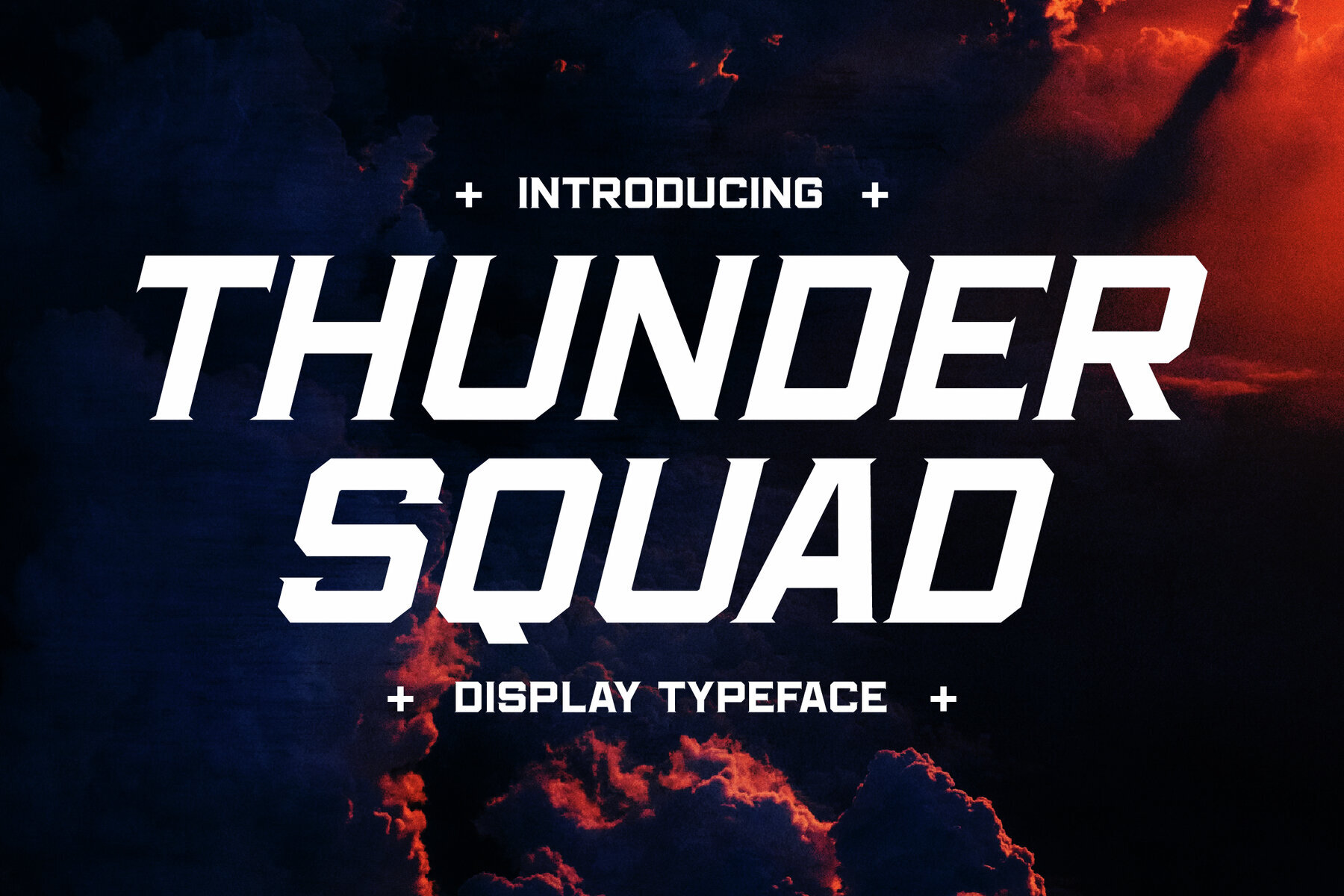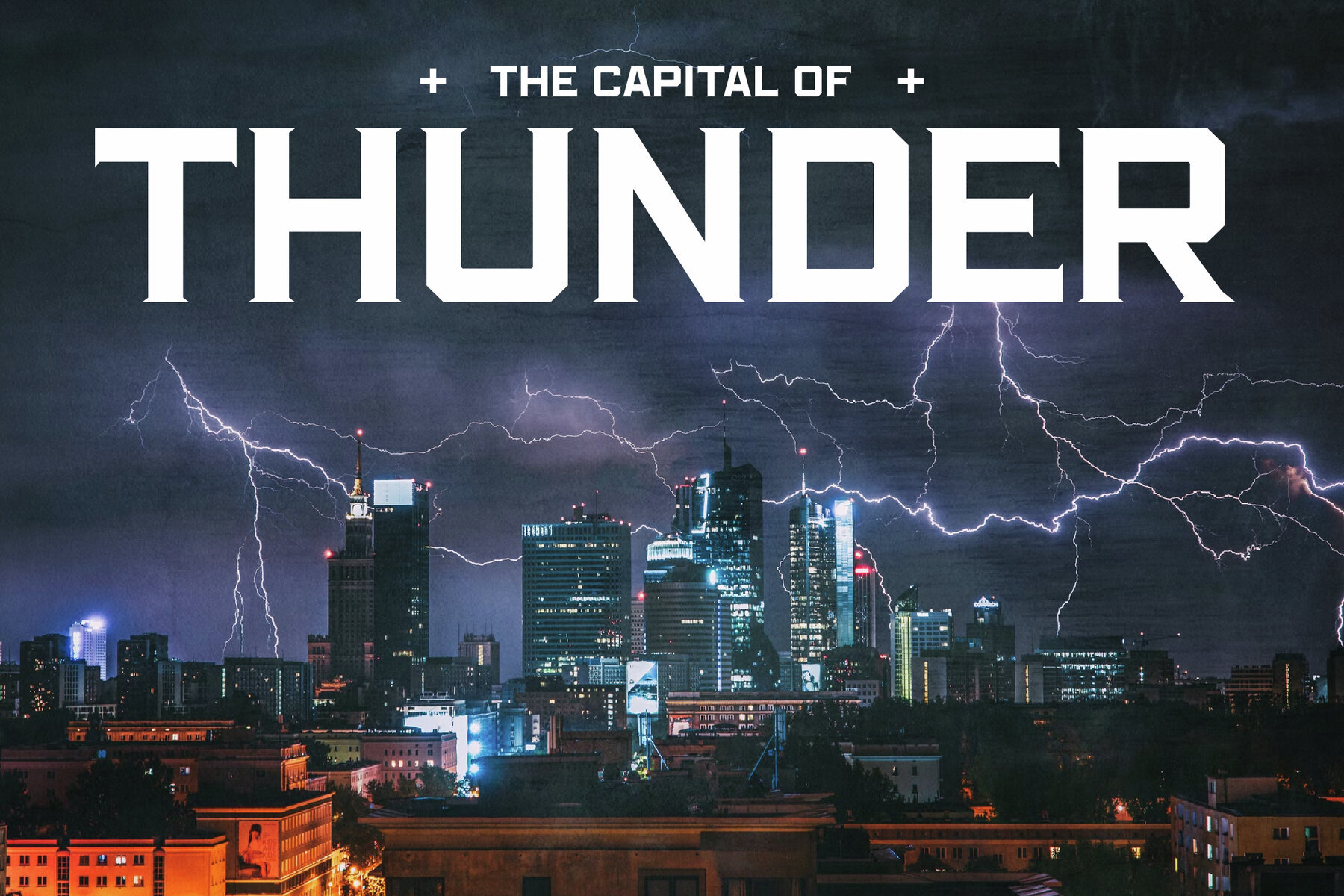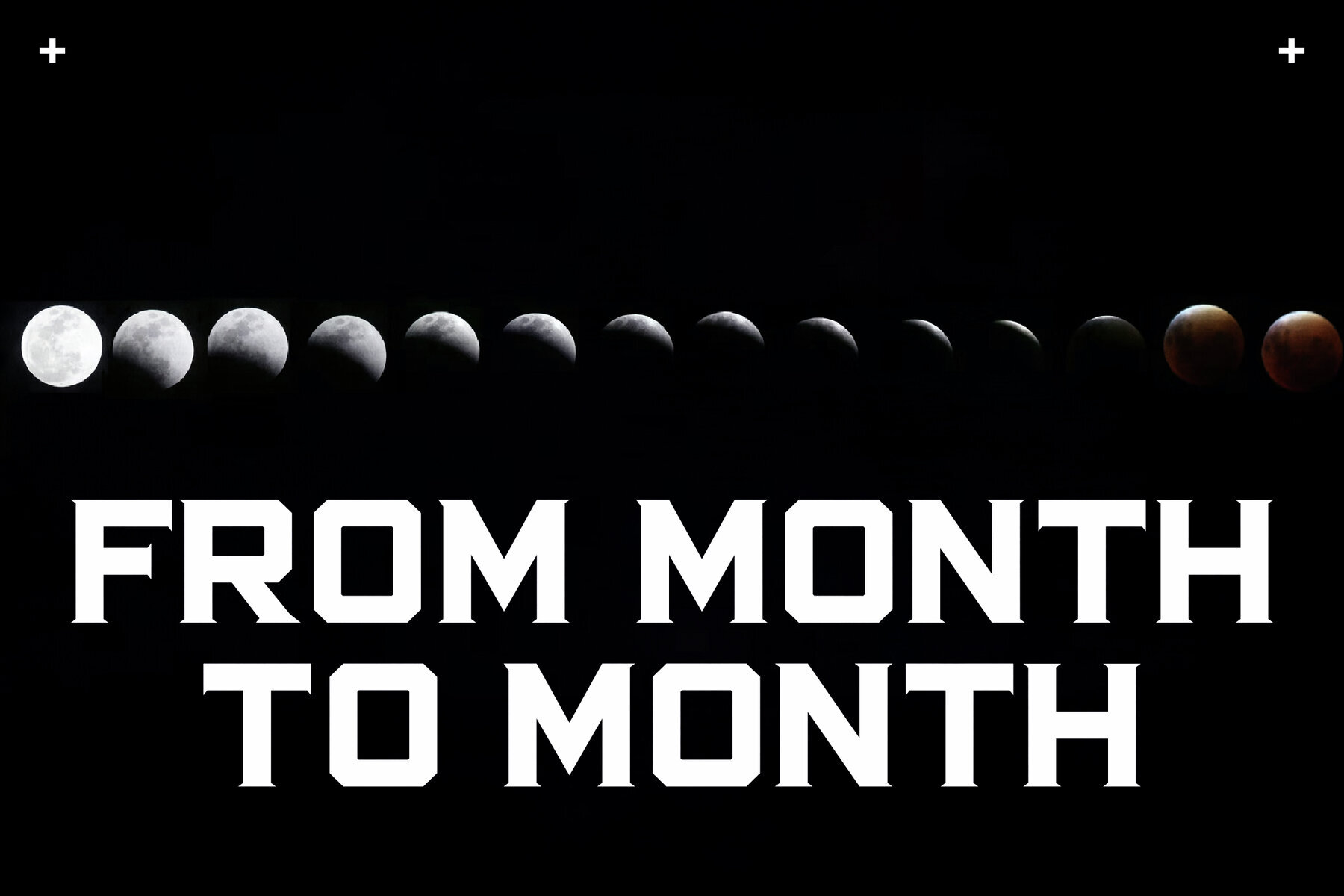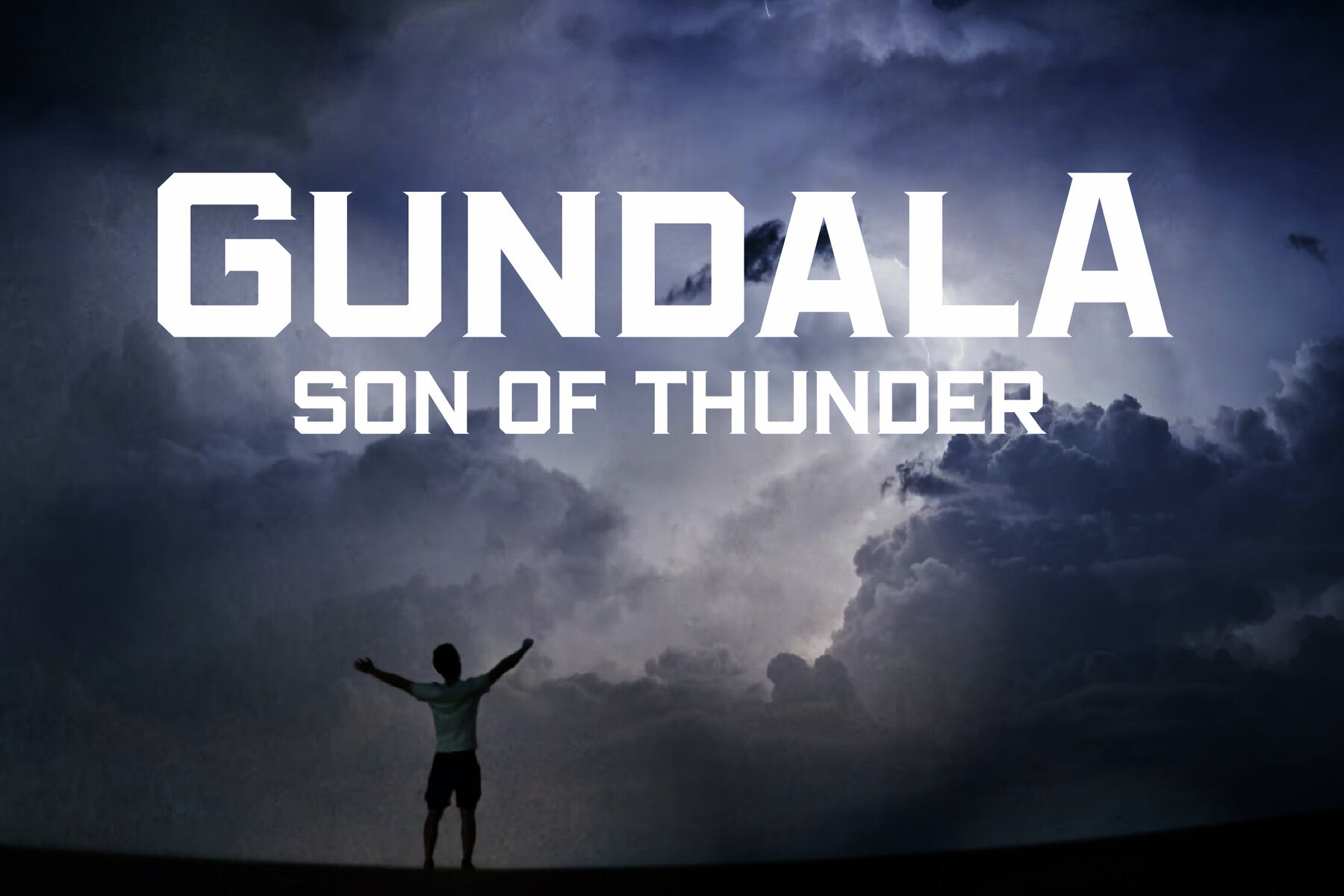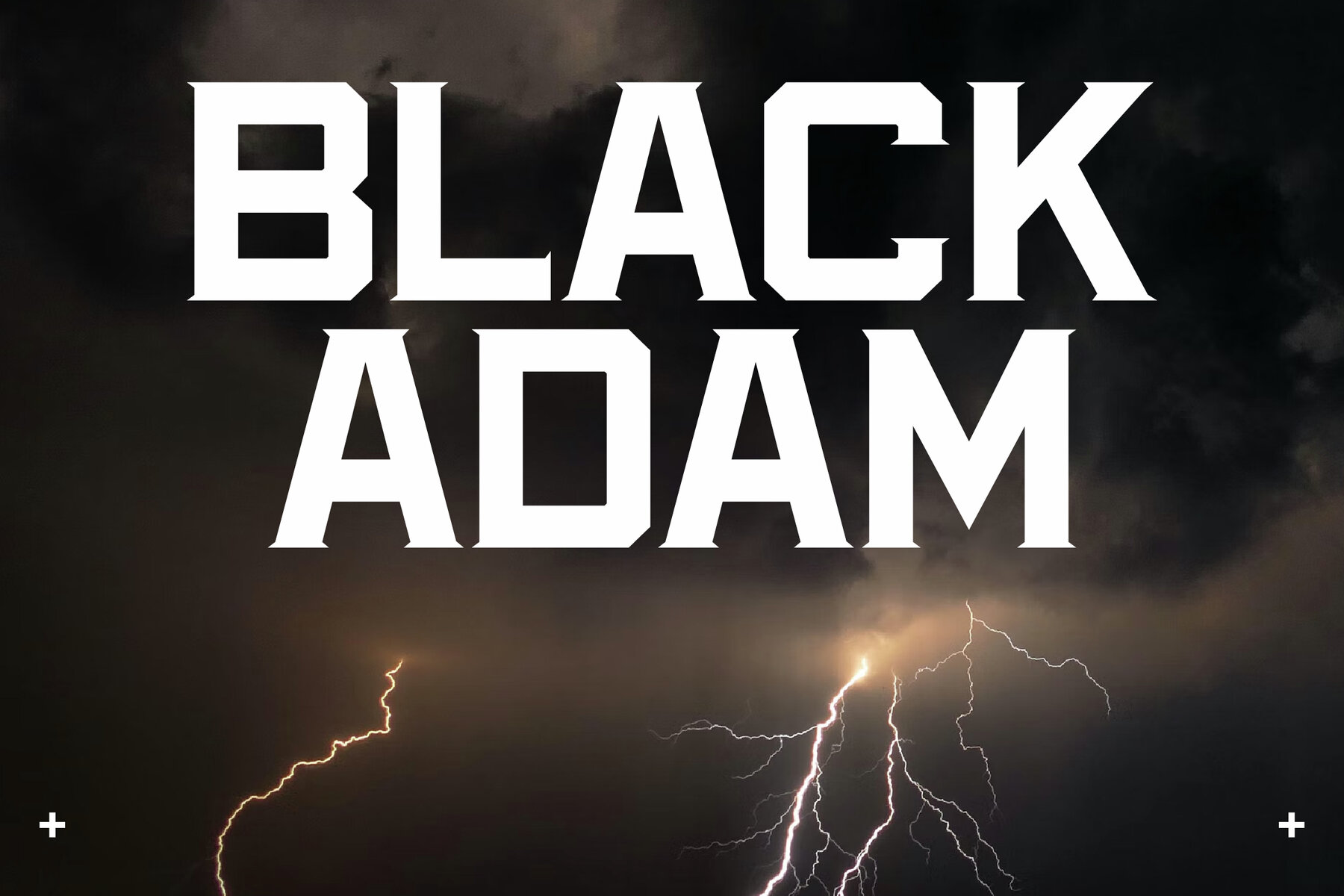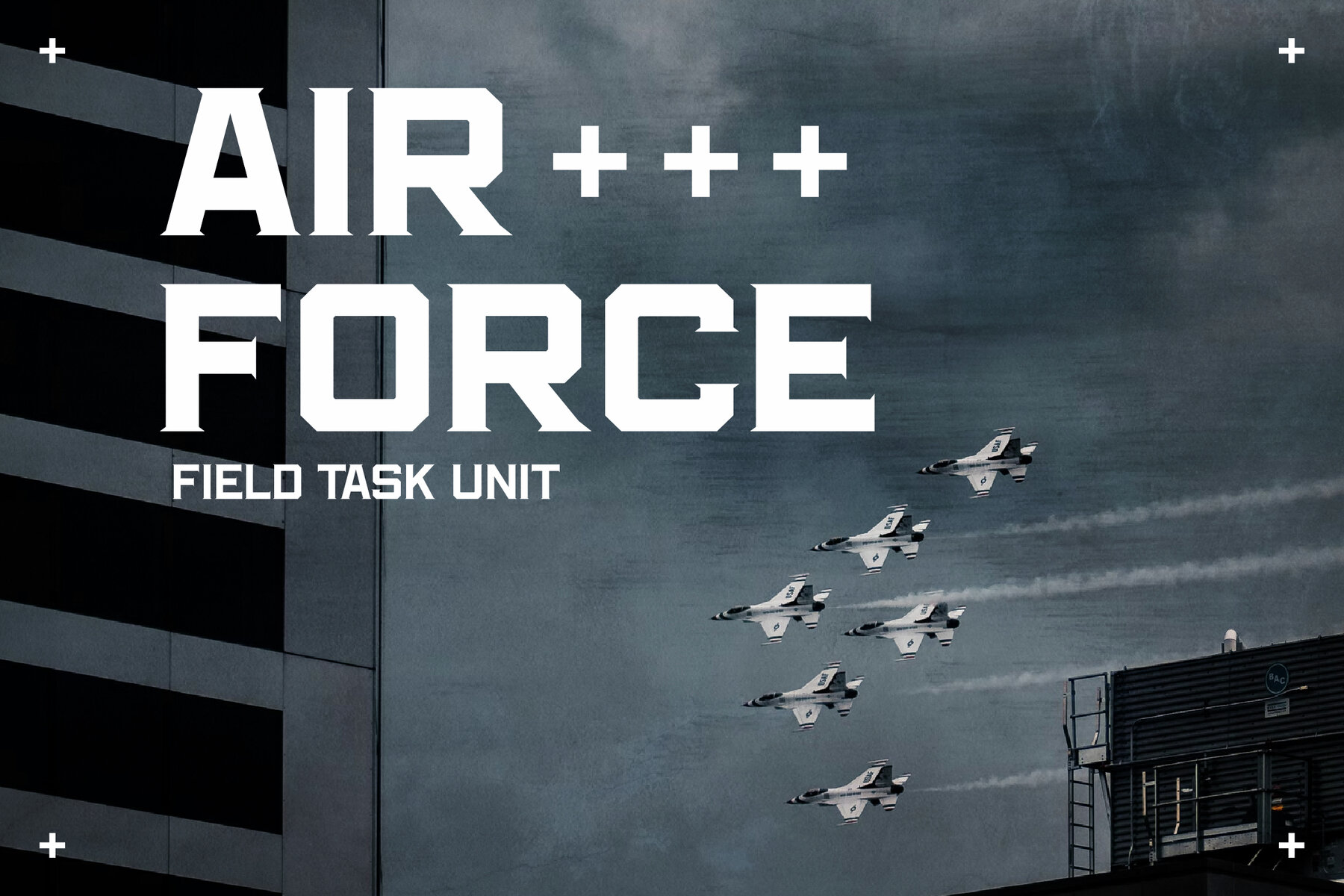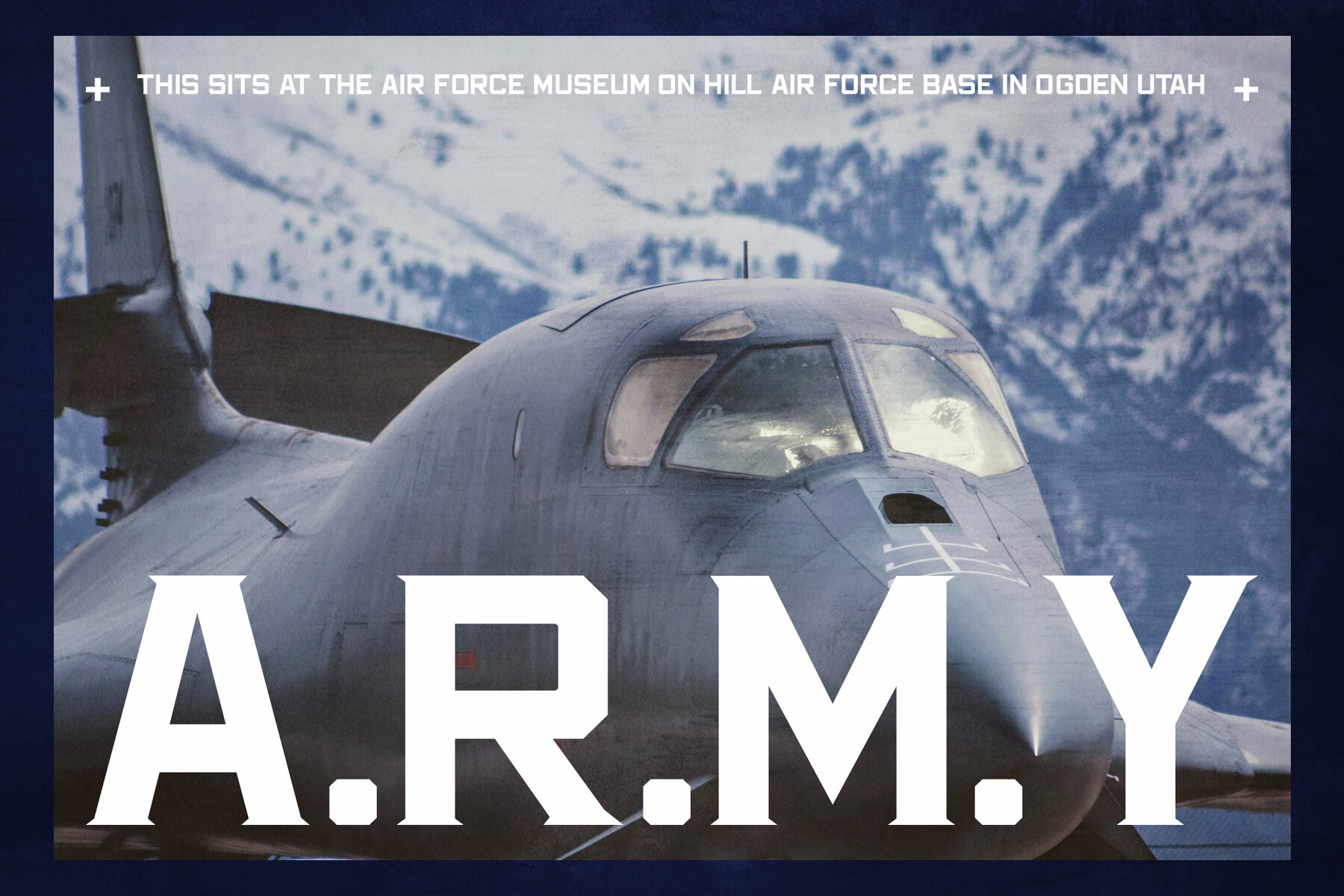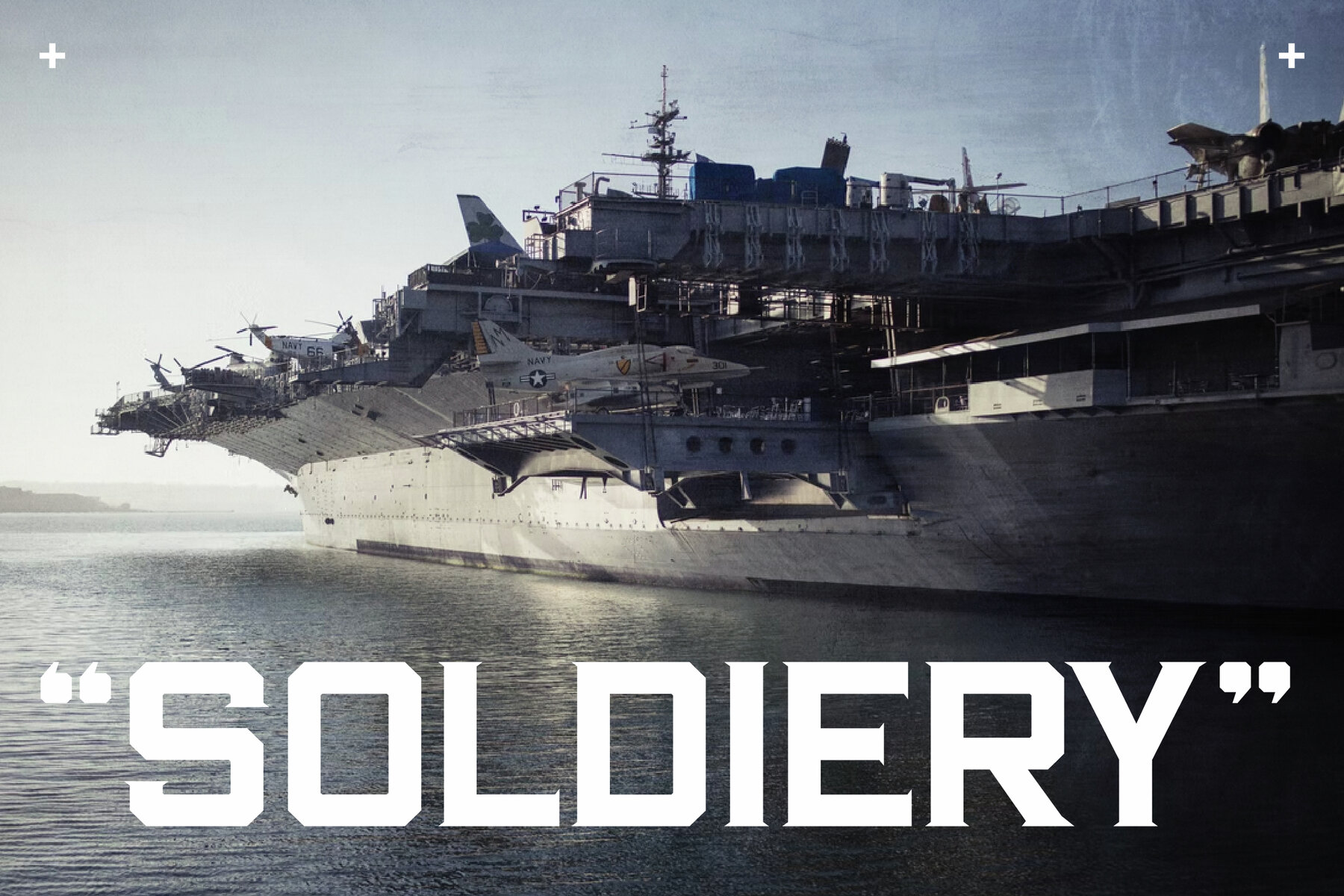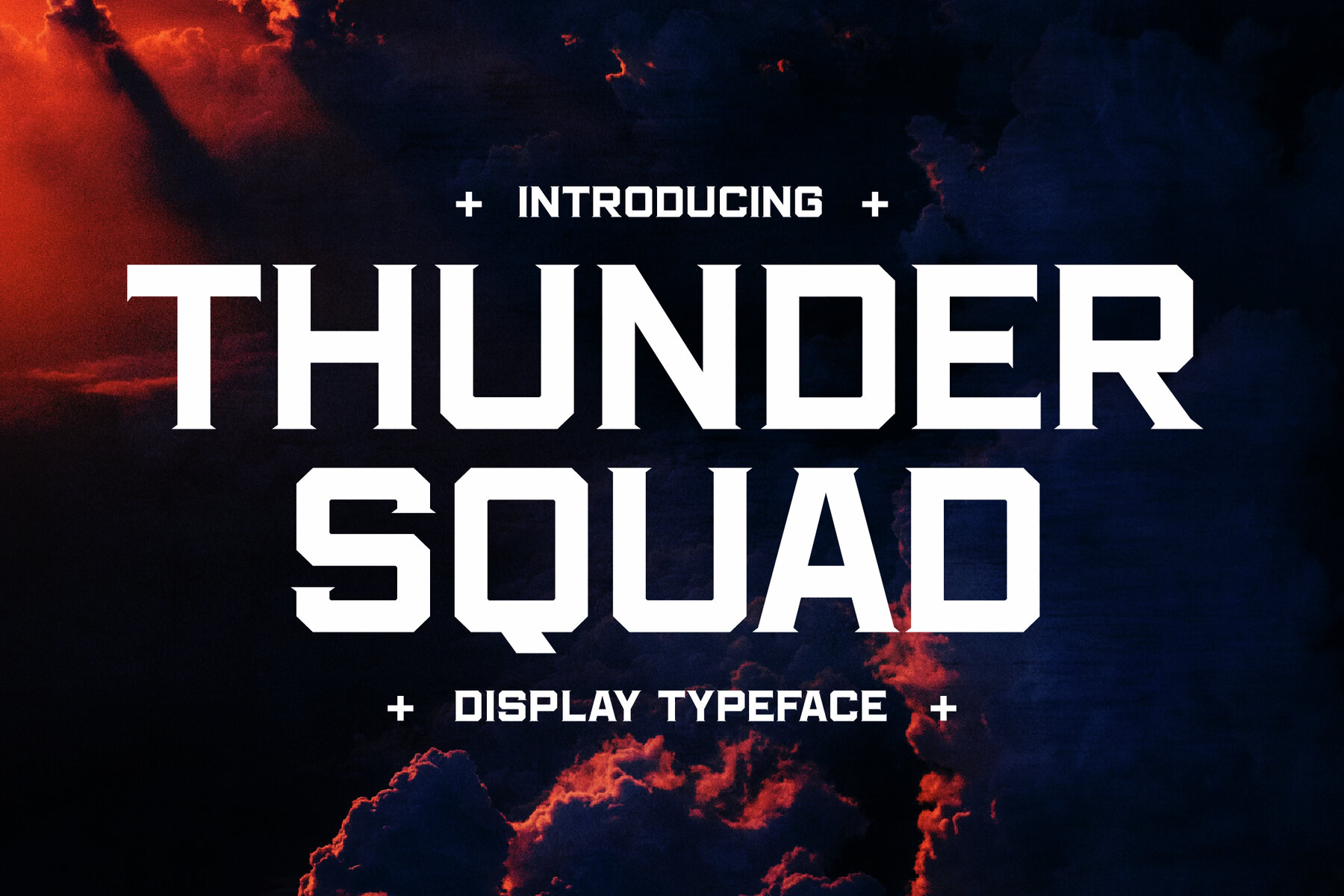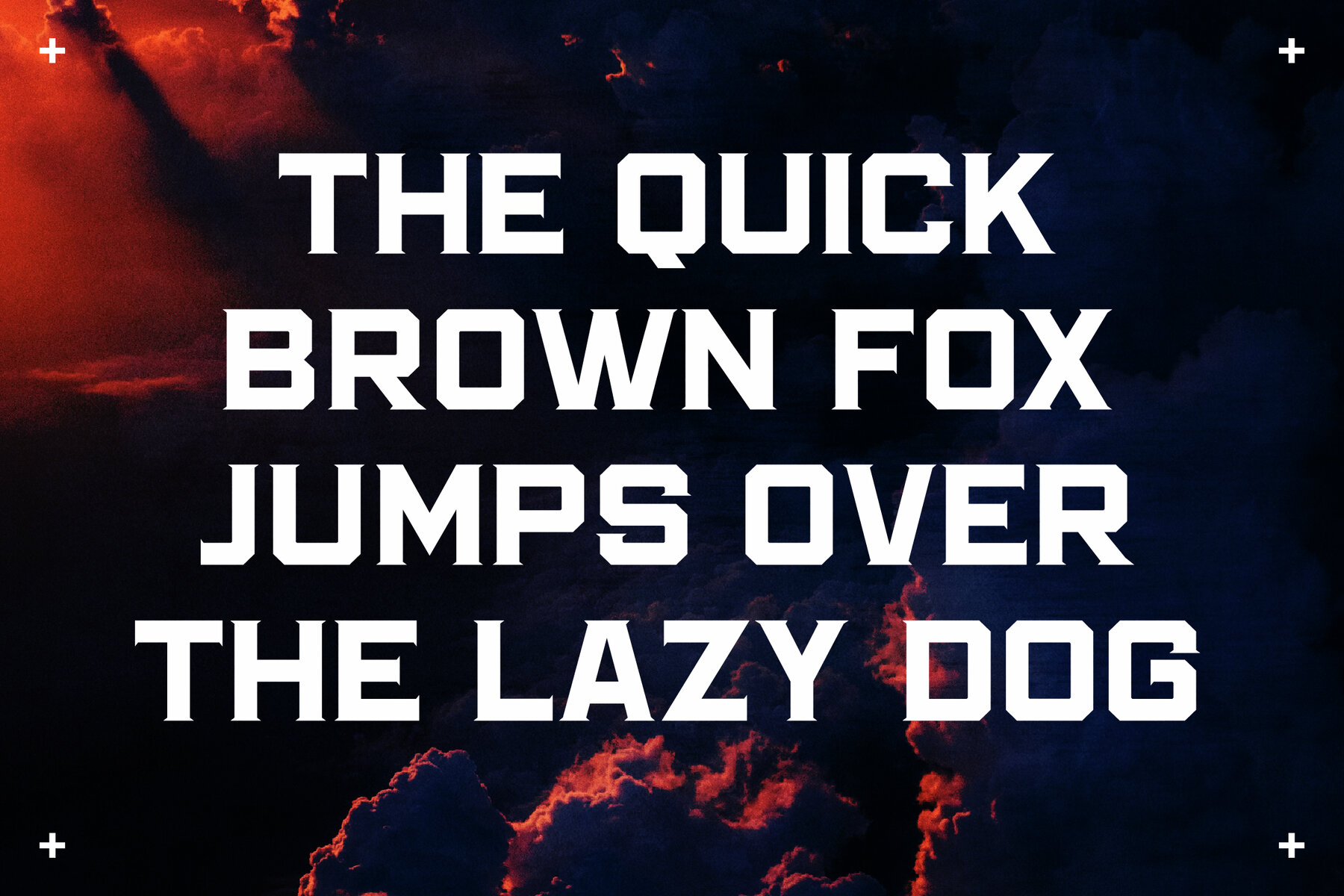
THUNDER SQUAD Font
Introducing the THUNDER SQUAD Typeface, a sophisticated blend of modern and classic serif style. Esteemed for its unique flair and contemporary appearance, this typeface is your go-to choice for creating upscale logos, captivating book or movie titles, and stylish fashion branding. It excels in magazine layouts, clothing designs, and expressive quotes, making it a versatile tool for various design needs.THUNDER SQUAD Typeface